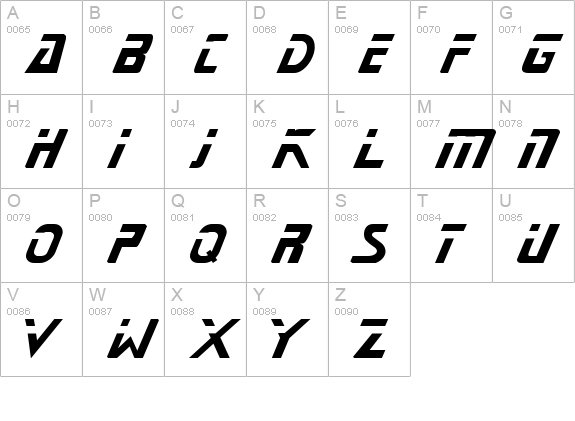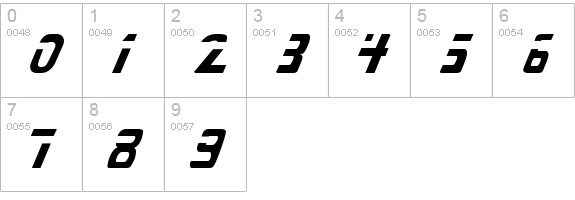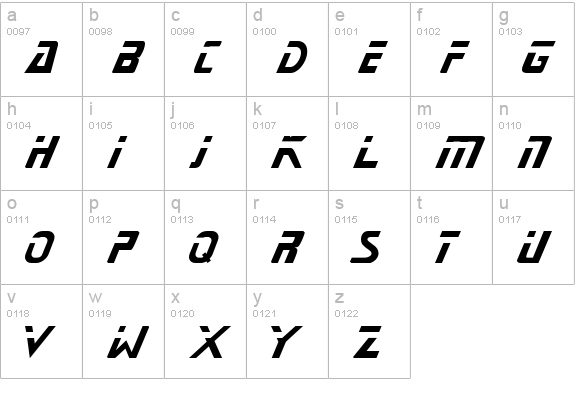
Star Next Font Details
Star Next is a captivating and mesmerizing font that is sure to leave a lasting impression. With its sleek and modern design, this font is perfect for any project that requires a touch of sophistication and elegance. Whether you're designing a logo, creating a website, or crafting eye-catching advertisements, Star Next will effortlessly elevate your work to new heights. One of the best things about Star Next is that it is available for free. That's right, this incredible font can be yours without spending a single penny. You can easily download Star Next at FontsMarket.com, a trusted source for high-quality fonts. Simply visit the website, search for Star Next, and within seconds, you'll have this stunning font ready to use in your projects. Not only is Star Next free, but it also offers a wide range of styles and variations. From bold and impactful to delicate and graceful, this font has it all. Its versatility allows you to experiment and find the perfect look for your design, ensuring that it stands out from the crowd. What sets Star Next apart from other fonts is its exceptional legibility and readability. Each letter is carefully crafted to ensure maximum clarity, making it ideal for both print and digital projects. Whether it's a small caption or a large headline, Star Next will deliver superb readability every time. In addition to its aesthetic appeal and free availability, Star Next also boasts excellent compatibility with various design software and platforms. Whether you're a beginner or a seasoned professional, this font will seamlessly integrate into your workflow, making your design process smoother and more efficient. So why wait? Enhance your designs with the captivating beauty of Star Next. Download it for free at FontsMarket.com and watch as your projects come to life with this remarkable font. Whether you're a designer, a business owner, or simply someone who appreciates the art of typography, Star Next is a must-have font that will exceed all your expectations.